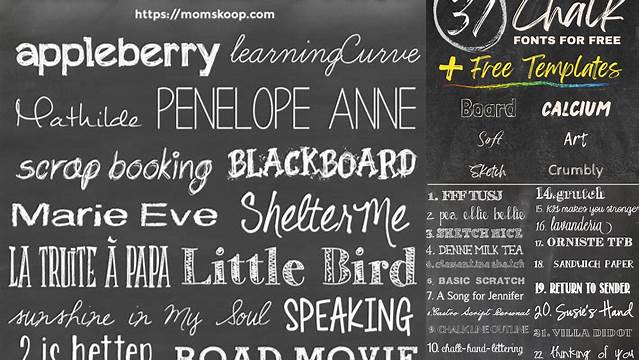
Cool Chalk Fonts For Google Slides: Free & Unique!
Hey guys! Ever wanted to give your Google Slides presentations that cool, hand-drawn, chalkboard vibe? Well, you're in luck! Chalk fonts are the perfect way to add a touch of personality and uniqueness to your slides. They're super versatile, whether you're creating a fun educational presentation, a creative pitch deck, or just want to stand out from the crowd. In this article, we're diving deep into the world of chalk fonts, exploring everything from where to find them, how to use them effectively, and even some awesome design tips and tricks. So, grab your virtual chalk and let's get started!
1. What are Chalk Fonts?
So, what exactly are chalk fonts? Well, imagine the look of handwriting or drawing done with chalk on a blackboard. Chalk fonts aim to replicate that very aesthetic! They often feature a slightly rough, textured appearance, mimicking the way chalk leaves its mark. This gives them a handcrafted, informal feel, perfect for adding a touch of warmth and personality to your designs. Chalk fonts come in a variety of styles, from bold and chunky to delicate and script-like, so there's sure to be one that fits your needs. They're incredibly versatile and can be used for everything from headings and titles to body text and even decorative elements. Using the right font is a cornerstone of effective visual communication, so choosing a chalk font can significantly impact the mood and message of your presentation. Think about how a playful, whimsical font might be perfect for a children's presentation, while a bolder, more industrial-looking chalk font could be ideal for a presentation on architecture or design. The key is to match the font's personality to the overall theme and tone of your slides. Plus, they're just plain fun to use! Who doesn't love the nostalgic feel of a chalkboard?
2. Best Free Chalk Fonts for Google Slides
Finding the perfect font can sometimes feel like searching for a needle in a haystack, but don't worry, I've got you covered! There are tons of amazing free chalk fonts out there that work seamlessly with Google Slides. One of my personal favorites is 'Chalkduster,' a classic, bold chalk font that's super readable and eye-catching. It's perfect for headings and titles! Then there's 'Eraser,' which has a slightly more rough-and-tumble look, mimicking the effect of chalk being rubbed off a blackboard. This one's great for adding a bit of grunge and texture to your designs. And let's not forget 'KG Primary Penmanship,' a fantastic option for educational presentations, as it resembles the handwriting style often taught in elementary schools. When you're choosing a free chalk font, keep in mind things like readability and versatility. You want a font that's easy to read on screen, even at smaller sizes, and one that works well with a variety of different slide layouts and color schemes. Don't be afraid to experiment with different fonts and see what looks best for your specific project. Remember, the best font is the one that helps you communicate your message most effectively and enhances the overall visual appeal of your presentation. Plus, with so many fantastic free options available, there's no need to break the bank to create stunning slides!
4. Using Chalk Fonts for Headings and Titles
Chalk fonts are absolutely fantastic for headings and titles! They instantly grab attention and add a playful, eye-catching element to your slides. Think about it – a bold chalk font screaming out your presentation title? It's memorable! But, like any design element, it's all about using them effectively. A good rule of thumb is to keep your headings concise and impactful. A few well-chosen words in a striking chalk font can make a much bigger impact than a long, rambling title. Consider the overall tone of your presentation too. If you're going for a fun, informal vibe, a whimsical chalk font with lots of character could be perfect. On the other hand, if you want something a bit more serious and professional, opt for a cleaner, more readable chalk font. Experiment with different font sizes and weights to see what looks best. A larger, bolder font will naturally stand out more, while a smaller, lighter font can create a more subtle effect. And don't forget about color! A bright, vibrant chalk font can really pop against a dark background, while a more muted color can create a softer, more understated look. The key is to find the right balance between visibility and aesthetics. You want your headings to be eye-catching, but not overwhelming or distracting. When used correctly, chalk fonts can transform your headings and titles from plain text into visual masterpieces!
5. Chalk Fonts for Body Text: Readability Matters
While chalk fonts are awesome for headings, using them for body text can be a bit trickier. The key thing to consider here is readability. Chalk fonts, with their textured and sometimes uneven appearance, can be harder to read in large blocks of text. Imagine trying to read a whole paragraph written in a super grungy chalk font – your eyes would probably get tired pretty quickly! So, does this mean you should avoid using chalk fonts for body text altogether? Not necessarily! There are some chalk fonts that are surprisingly readable, especially those with a cleaner, more streamlined design. However, as a general rule, it's best to use chalk fonts sparingly for body text. If you do decide to use them, make sure you choose a font that's clear and easy to read, even at smaller sizes. Pay close attention to the spacing between letters and lines, as this can significantly impact readability. And definitely avoid using overly decorative or textured chalk fonts for large blocks of text. A better approach might be to use a standard, highly readable font like Arial or Helvetica for the main body text, and then use a chalk font for subheadings or bullet points to add a touch of personality without sacrificing readability. Remember, the primary goal of your presentation is to communicate your message effectively. So, always prioritize readability over aesthetics when it comes to body text.
6. Pairing Chalk Fonts with Other Fonts
Font pairing is an art! It's about finding fonts that complement each other and create a harmonious visual balance. When it comes to chalk fonts, pairing them with the right fonts can make a huge difference in the overall look and feel of your presentation. One classic pairing is to use a chalk font for headings and titles and a clean, sans-serif font like Arial or Helvetica for body text. This creates a nice contrast between the playful, textured chalk font and the clean, modern sans-serif font, making your slides both eye-catching and easy to read. Another great option is to pair a chalk font with a simple serif font like Times New Roman or Georgia. Serif fonts have those little